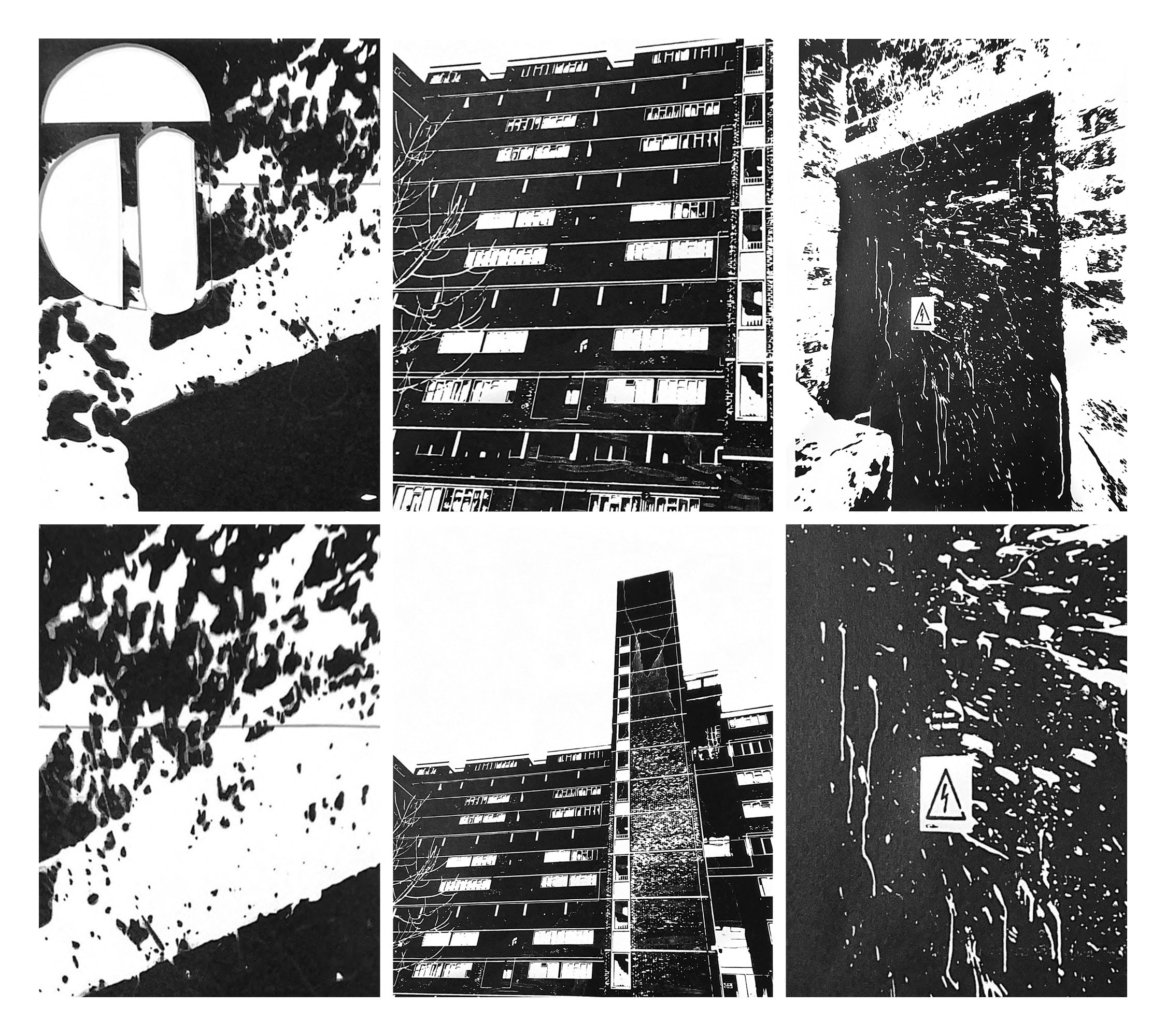
‘Dheton Brut,’ which originates from the term ‘Beton Brut,’ explores the translation into English of ‘raw concrete.’ Dheton Brut illustrates elements of my research that I have discovered regarding the physicality's and structure of 1970’s Brutalist architecture, personal anecdotes from Sarah Macintosh’s (the architect) interview with Simon Phipps. Dawson’s Heights is seen as a pinnacle of council housing and is highly viewed by its tight knit community. It’s obtrusive, overwhelming structure of a Ziggurat temple is supported by the ‘best views’ across London. I have tried to incorporate these aspects in a collaborative approach to my typeface.